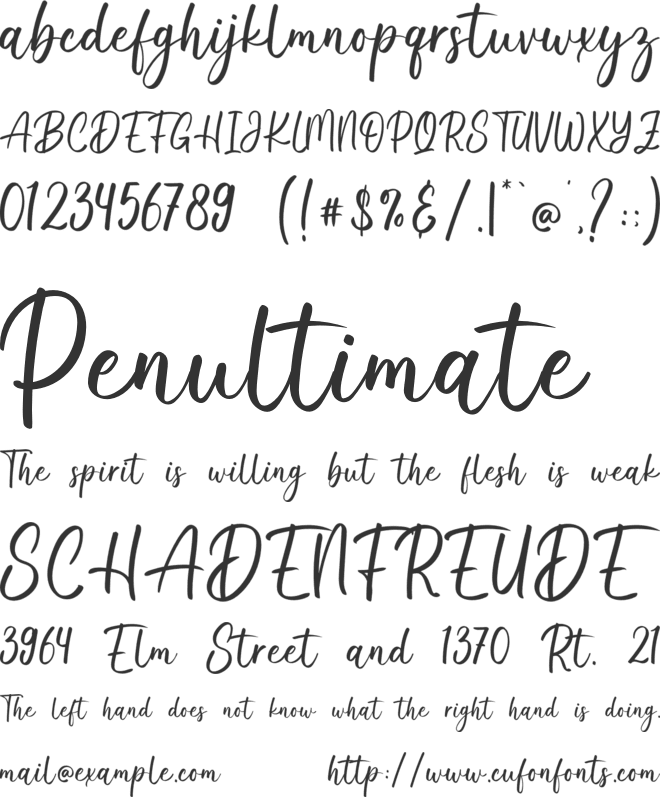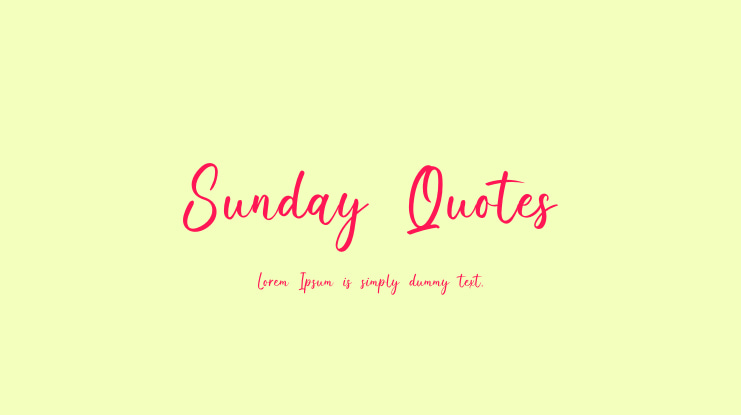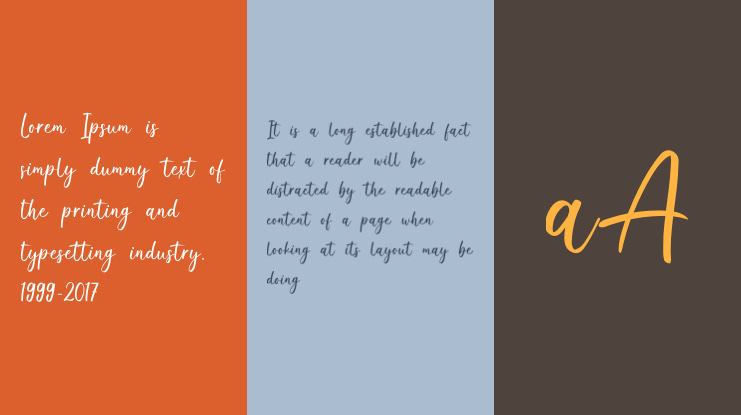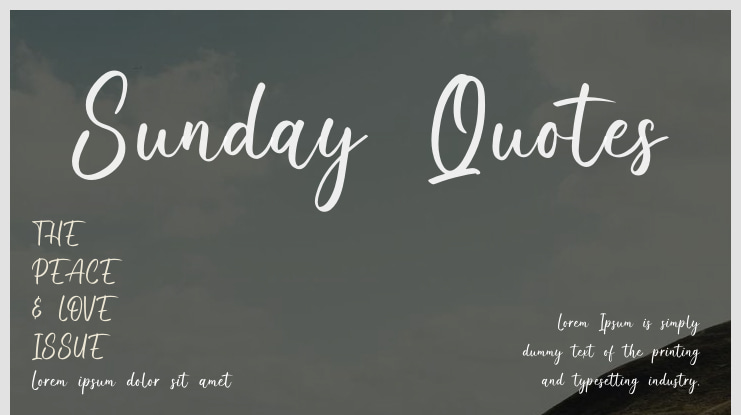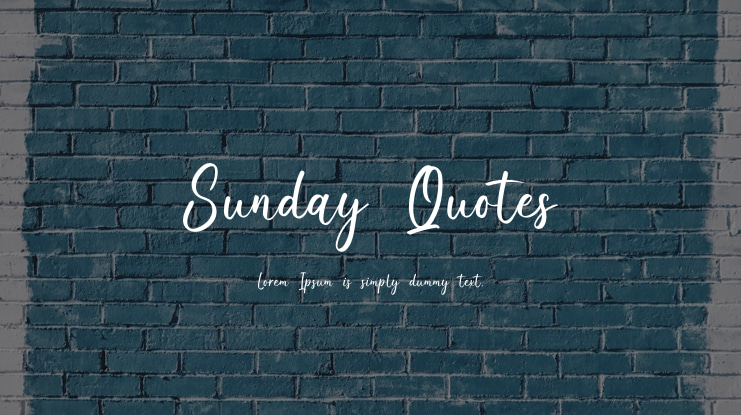
Sunday Quotes Font
Sunday Quotes is a whimsical handwritten calligraphy font that adds a playful touch to any project. Its charming and lighthearted design makes it perfect for adding a fun and cheerful vibe to your quotes, invitations, and more.